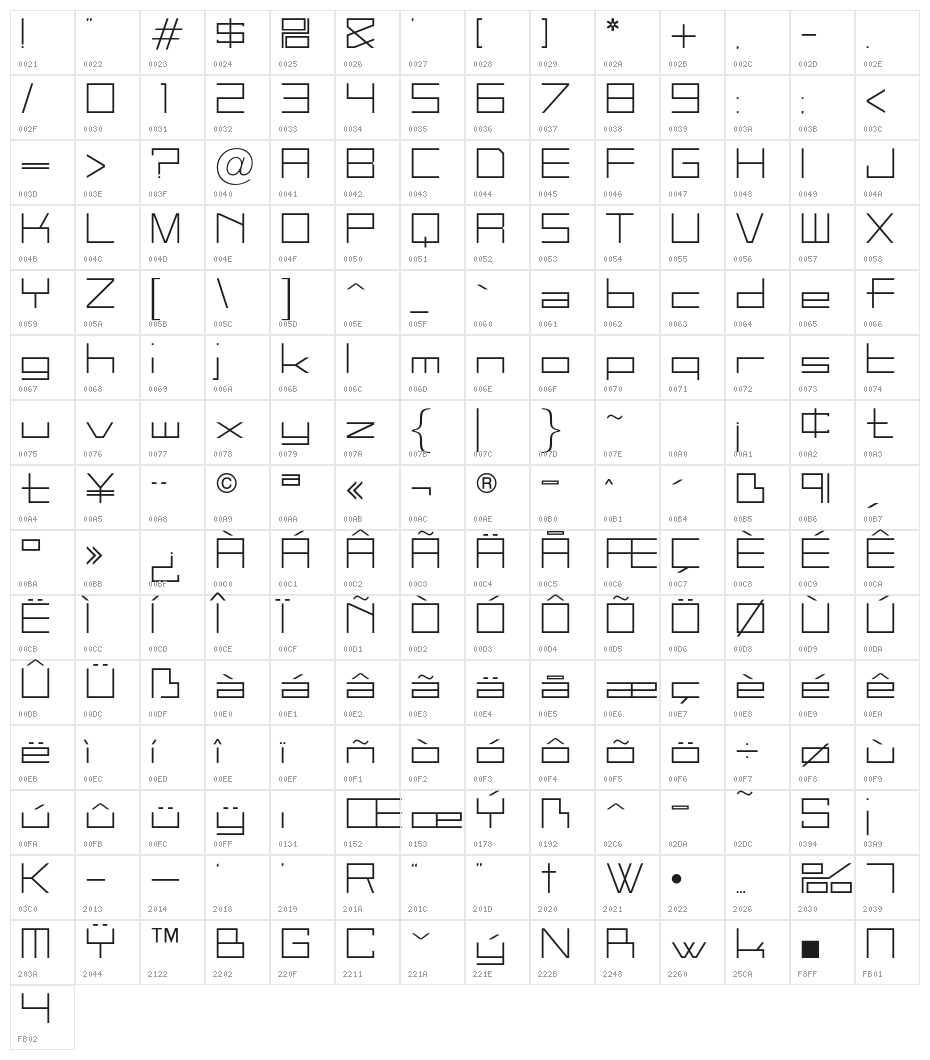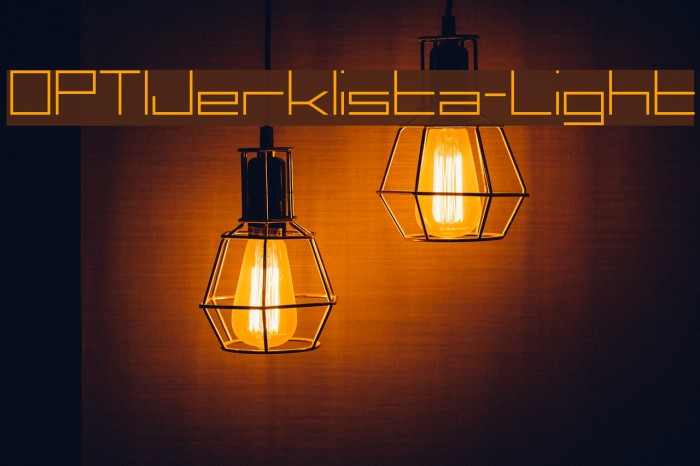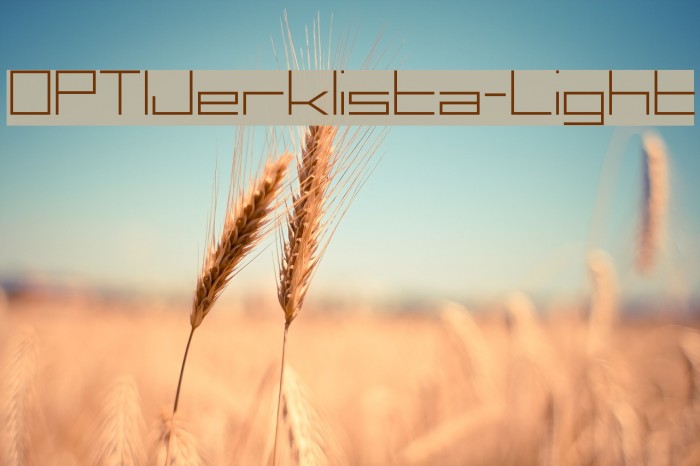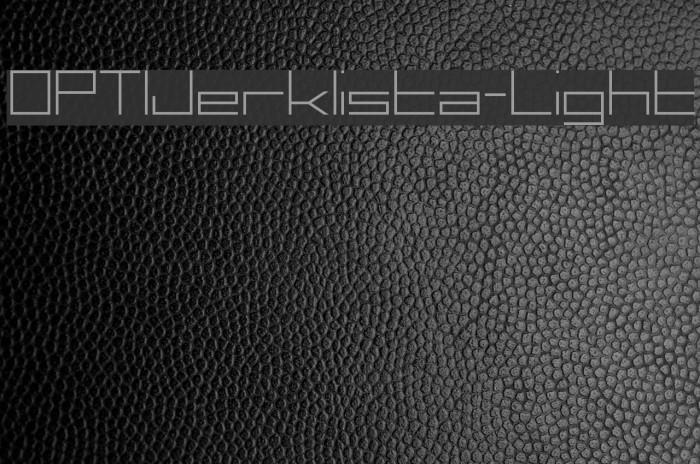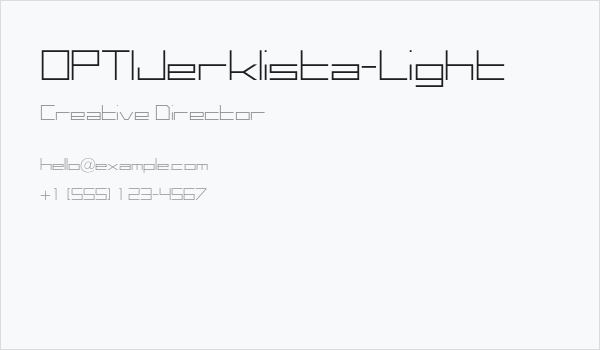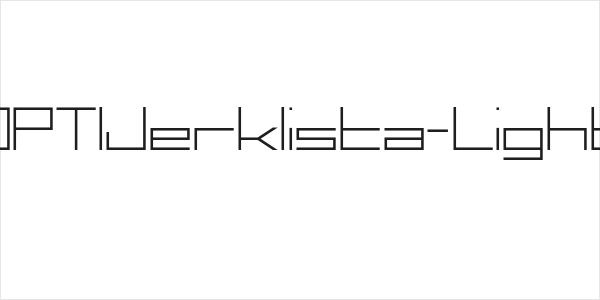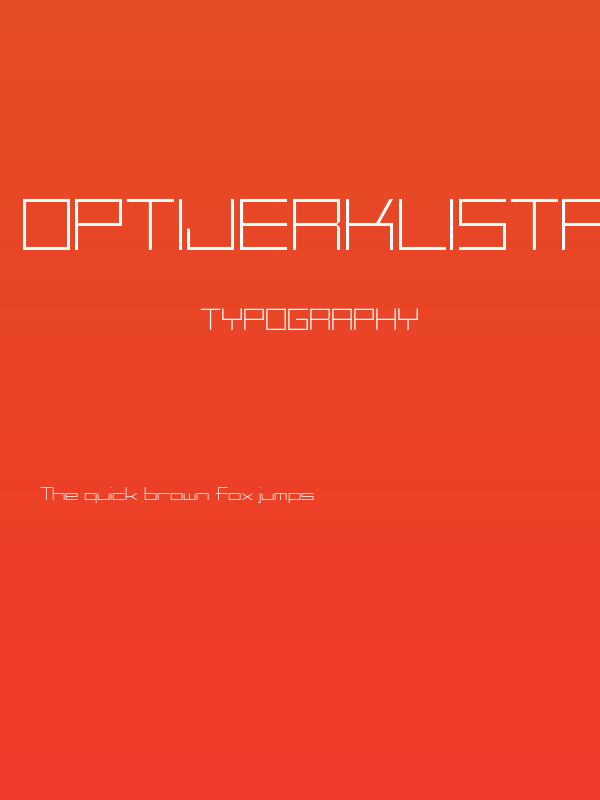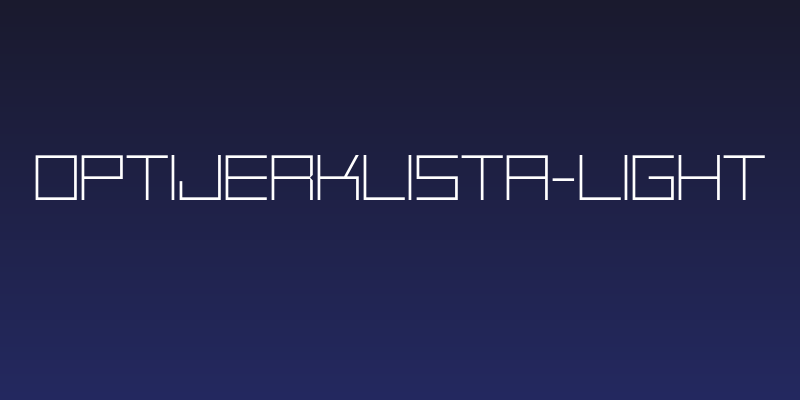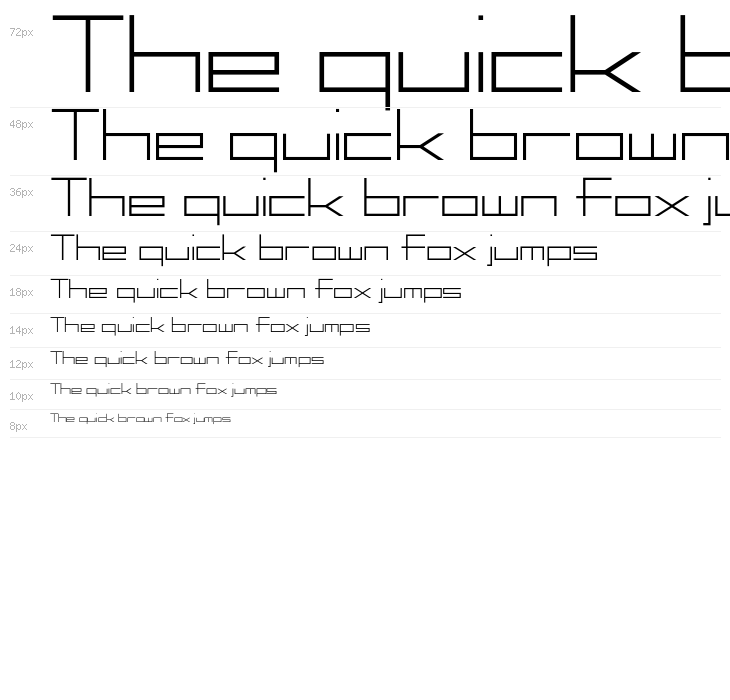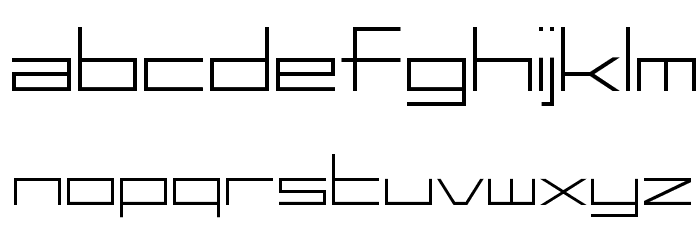
OPTIJerklista-Light Font
This font features a geometric and modern design with a distinct, minimalist aesthetic. The characters are constructed with clean, straight lines and sharp angles, giving it a futuristic and technical appearance. The uppercase and lowercase letters maintain a consistent height, contributing to a uniform and structured look. The numerals and special characters follow the same design principles, ensuring a cohesive style throughout. The font's light weight adds to its sleek and airy feel, making it suitable for projects that require a contemporary and sophisticated touch.
A geometric, modern font with clean lines and a minimalist design.
• Proposed Projects: Ideal for tech branding, modern posters, digital interfaces, and minimalist design projects.